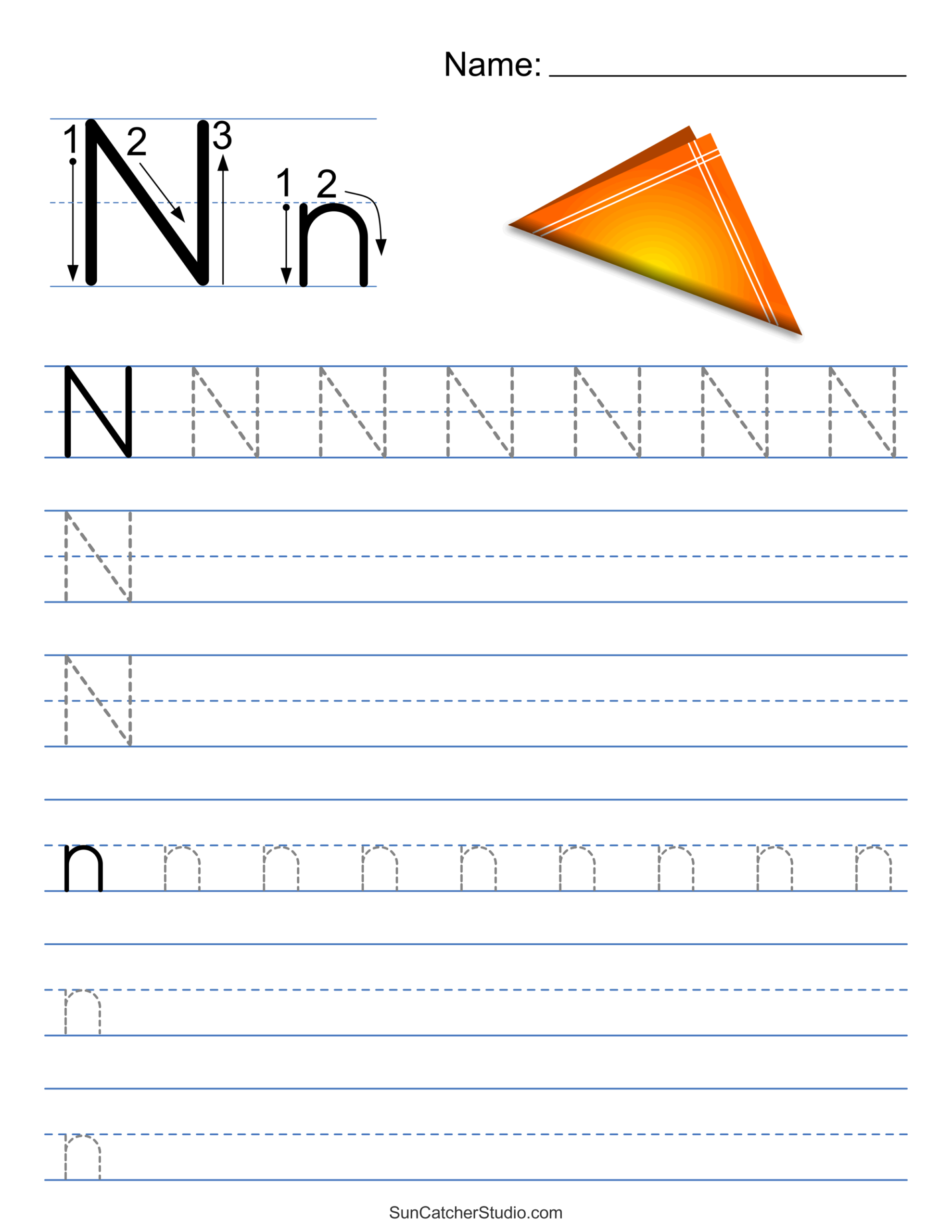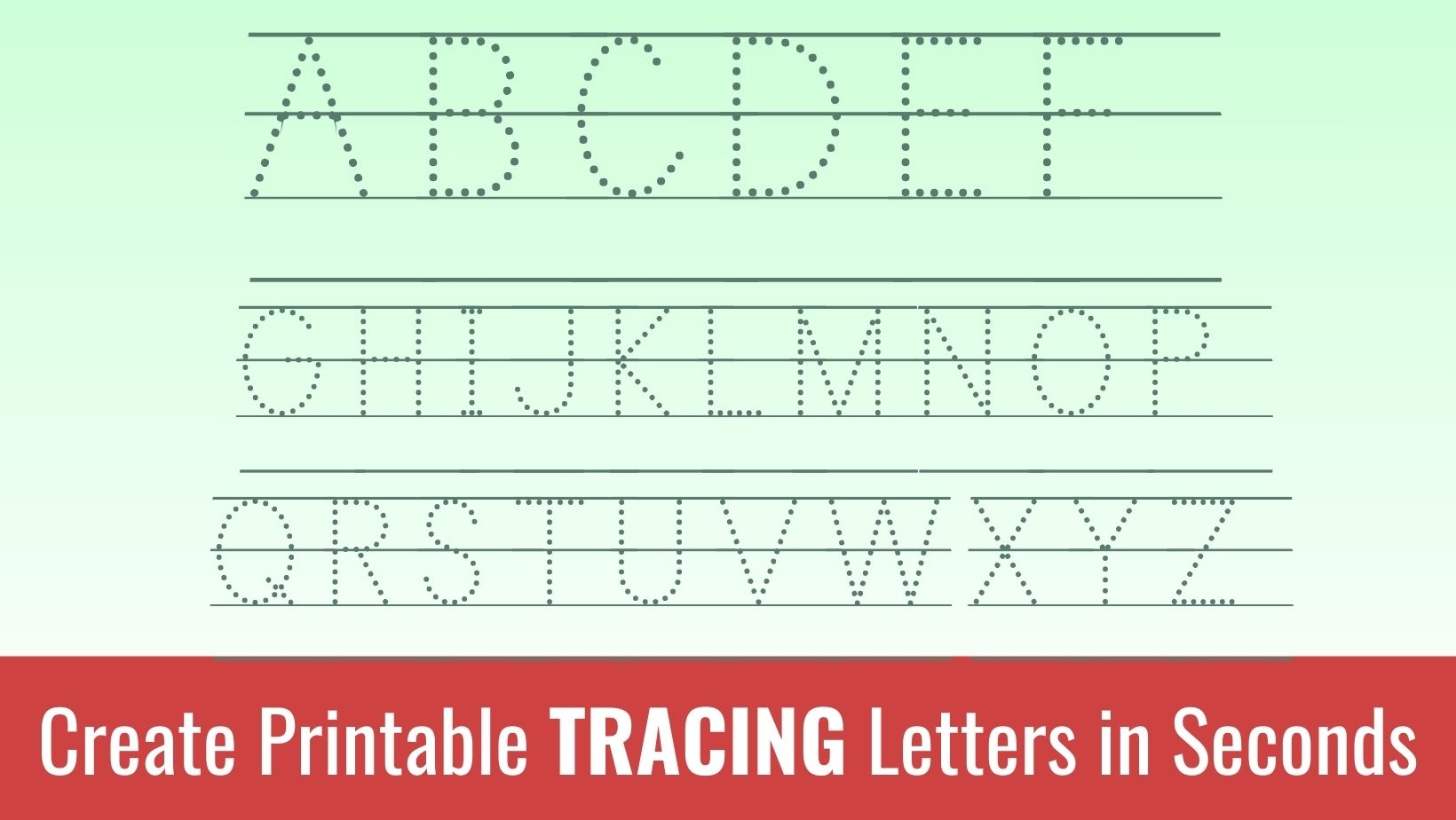
Finding the perfect font can elevate your design projects significantly. Whether you’re creating invitations, posters, or digital graphics, the right font sets the tone and enhances the overall aesthetic. One popular choice among designers is the tracing font.
Free Tracing Font
When searching for a free tracing font, consider what style fits your project best. Some fonts mimic handwriting, while others have a more playful vibe. Explore various websites that offer free downloads to find the perfect match.
Many free tracing fonts come with different weights and styles, providing flexibility in your designs. This variety allows you to mix and match fonts for headings and body text, creating a cohesive look across your project.
Incorporating a free tracing font into your designs can add a personal touch that resonates with your audience. Experiment with different styles to see what works best for your creative vision and enjoy the process of designing.
Exploring free tracing fonts opens up a world of creative possibilities. With so many options available, you’re sure to find one that perfectly complements your project and brings your ideas to life.